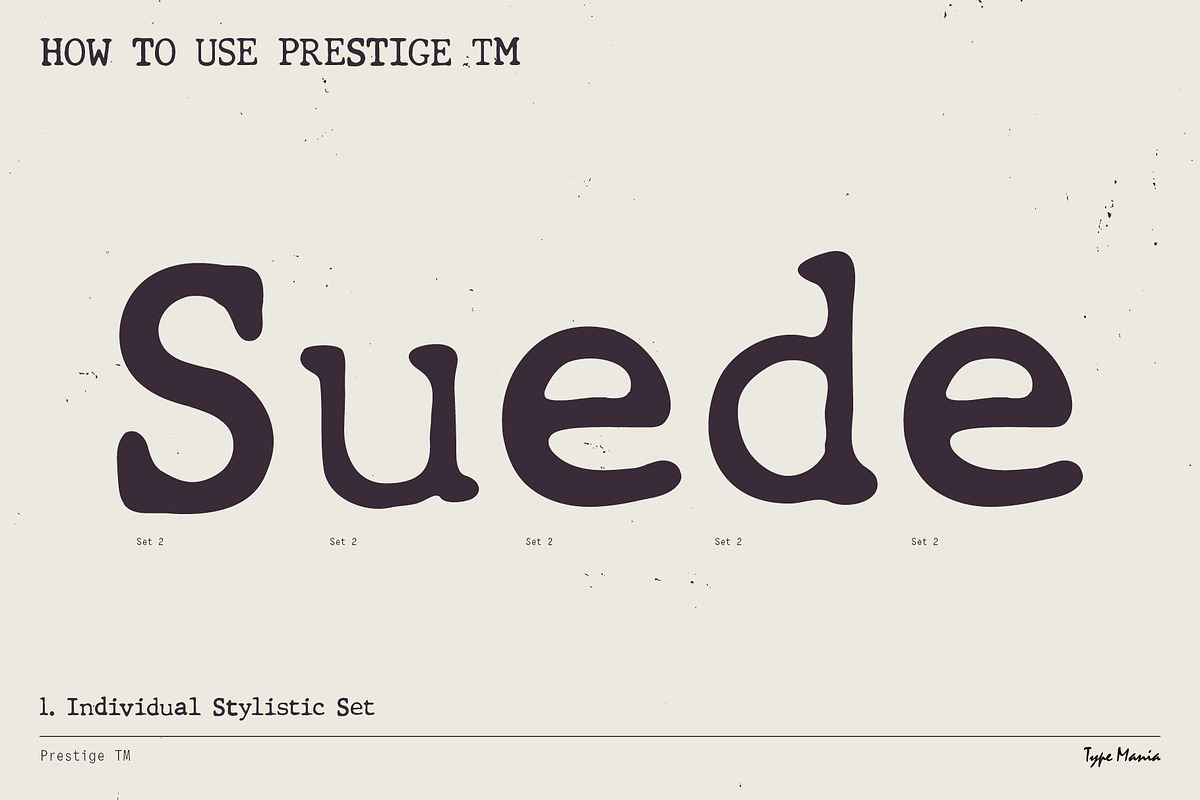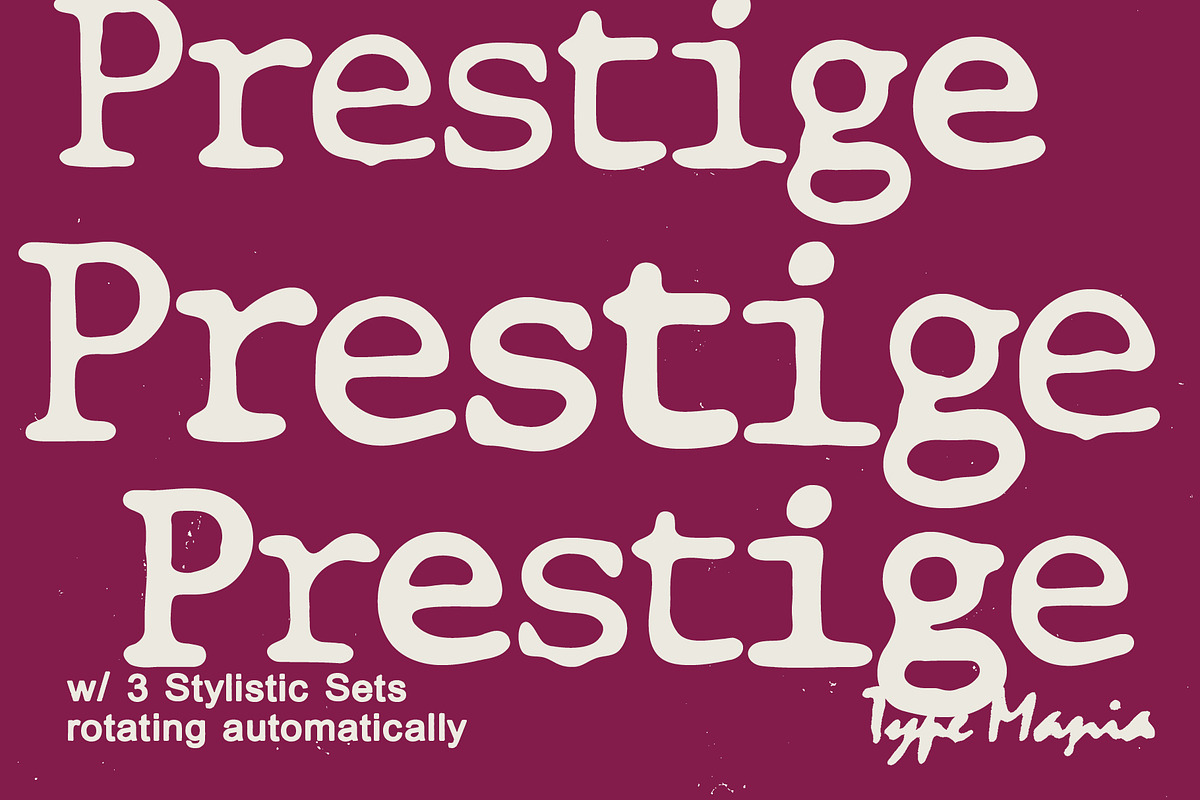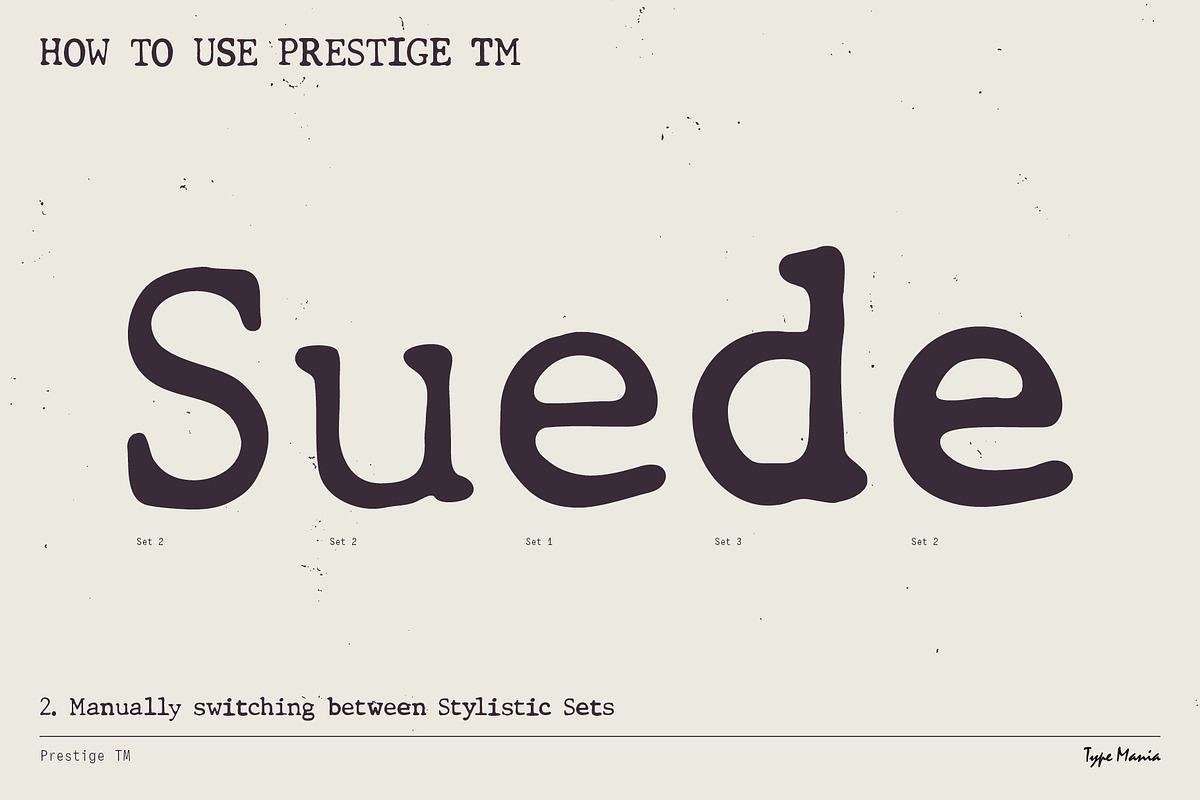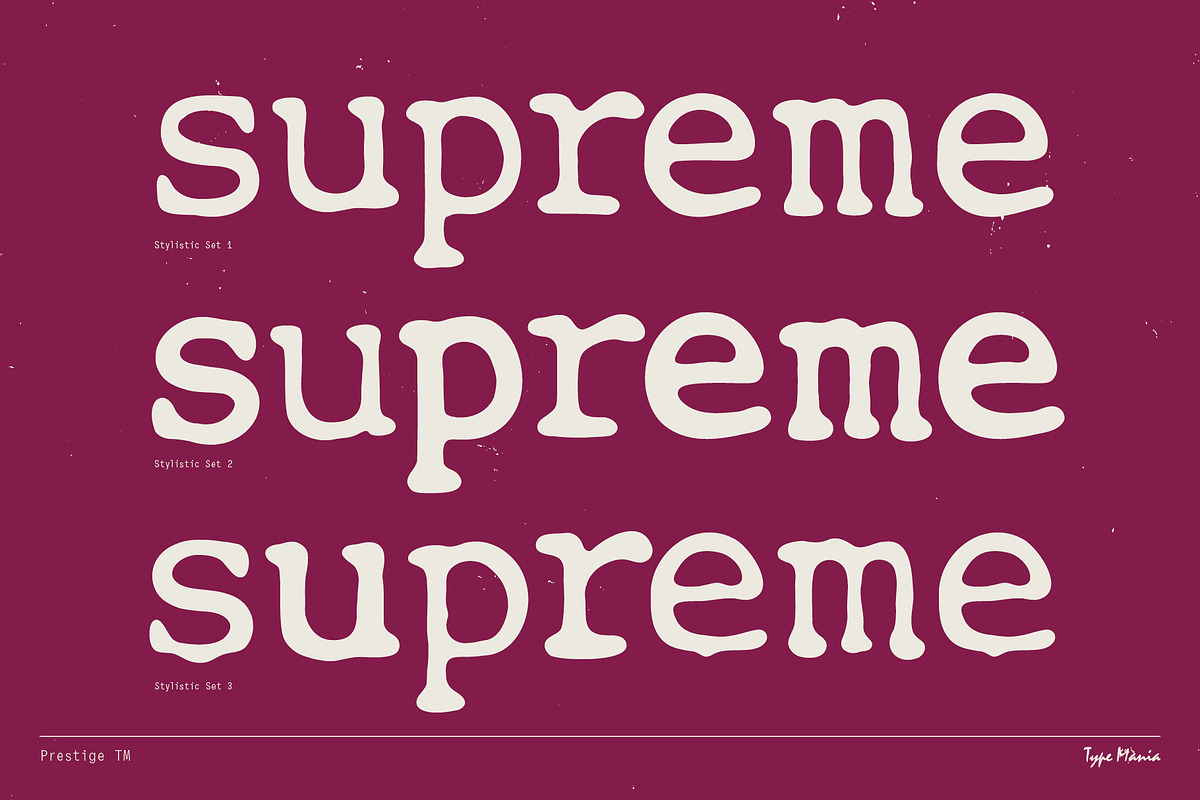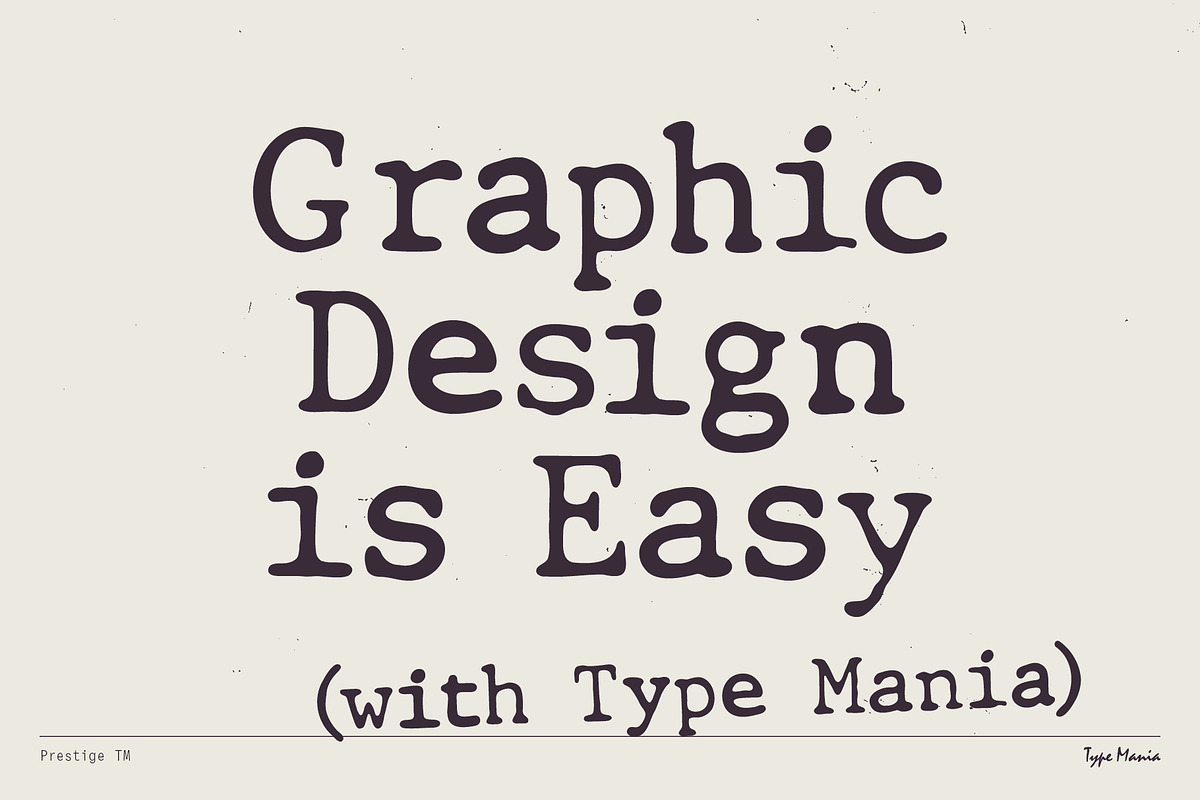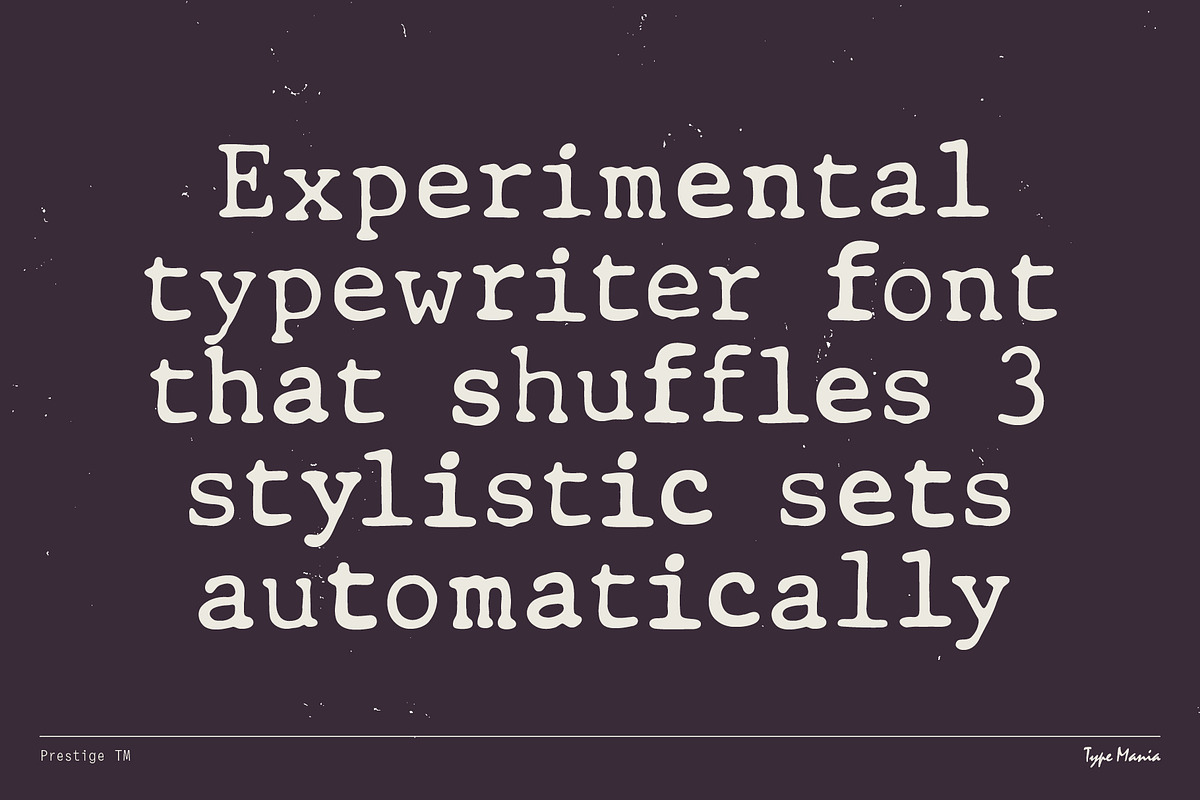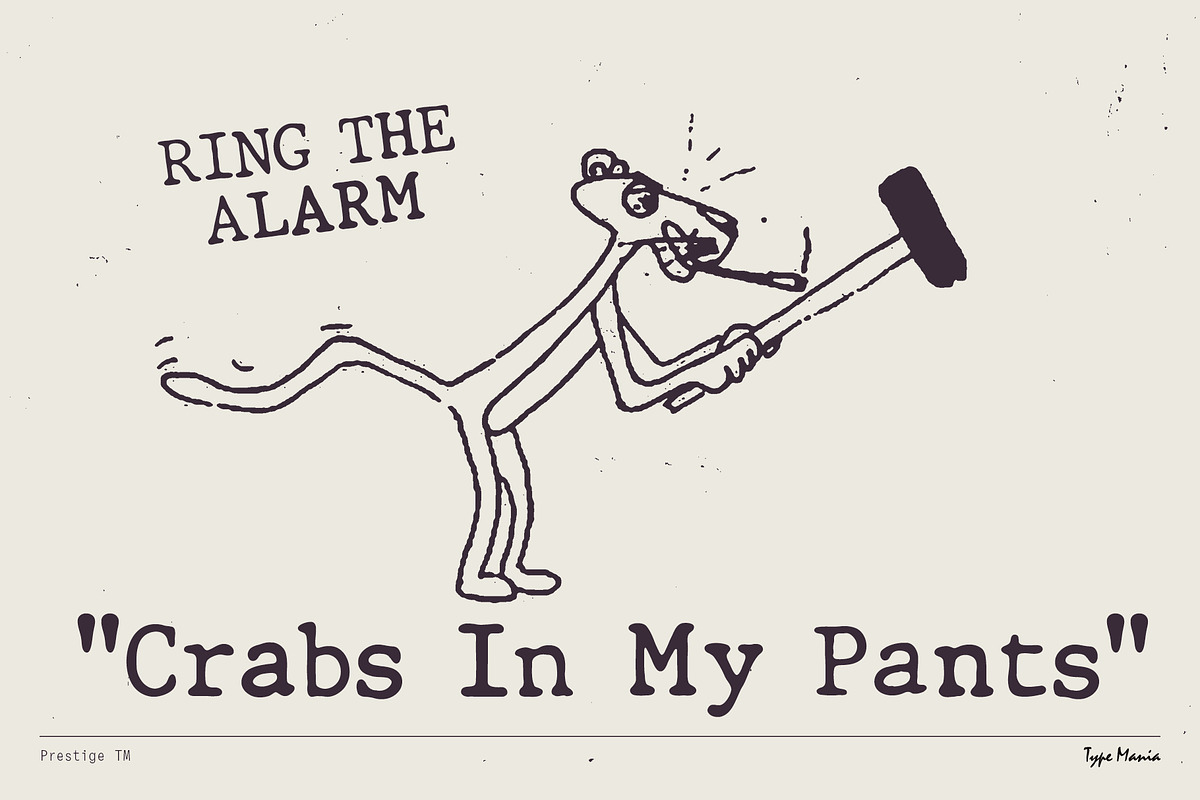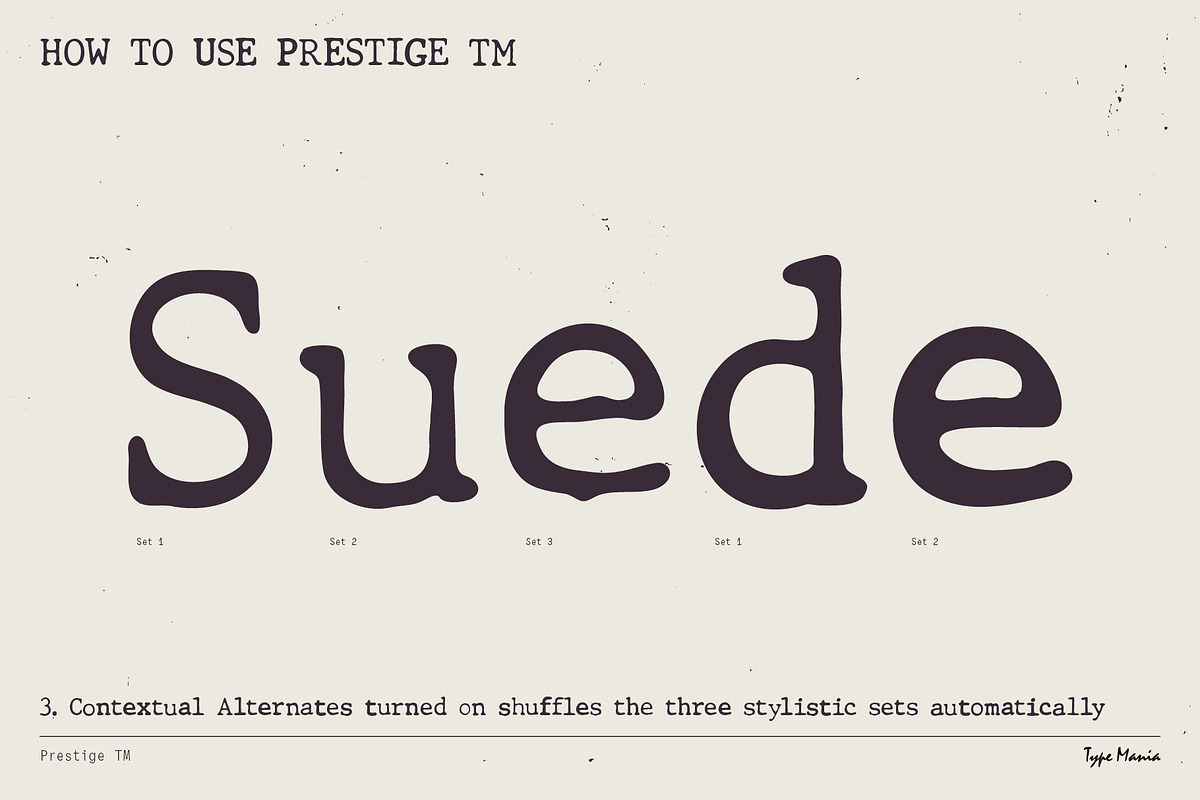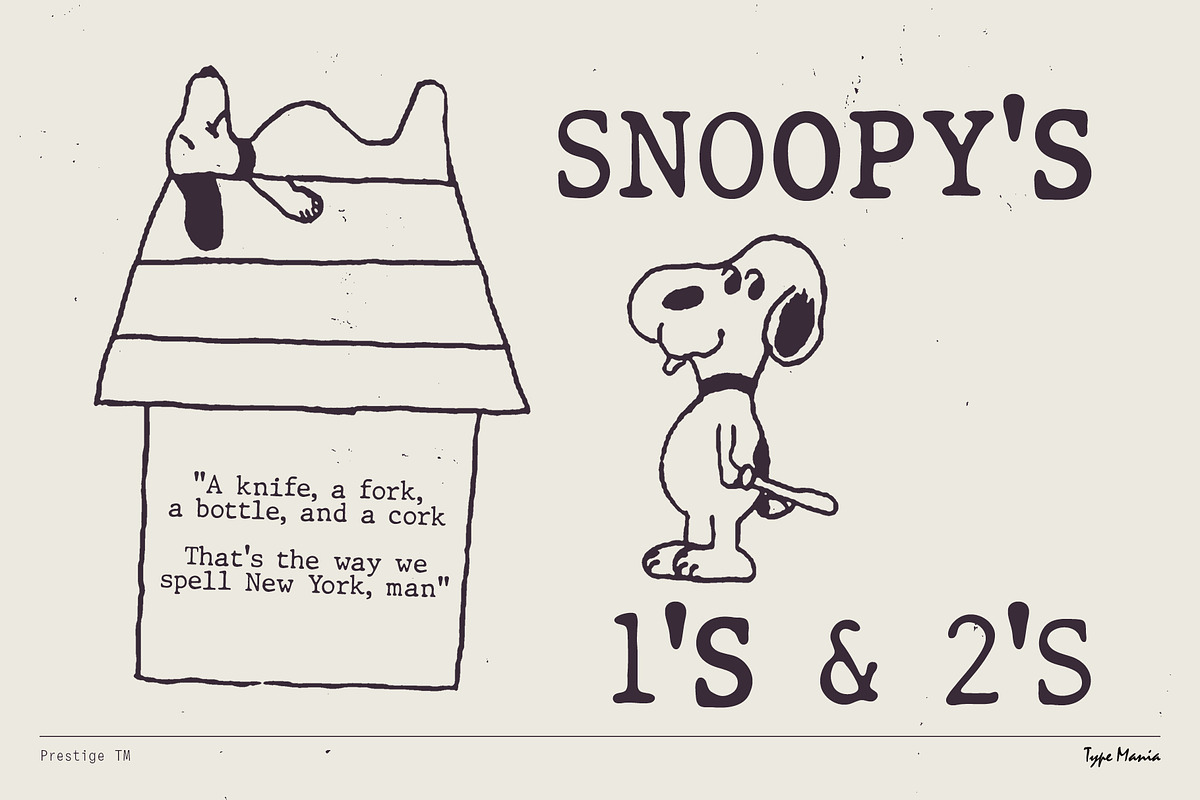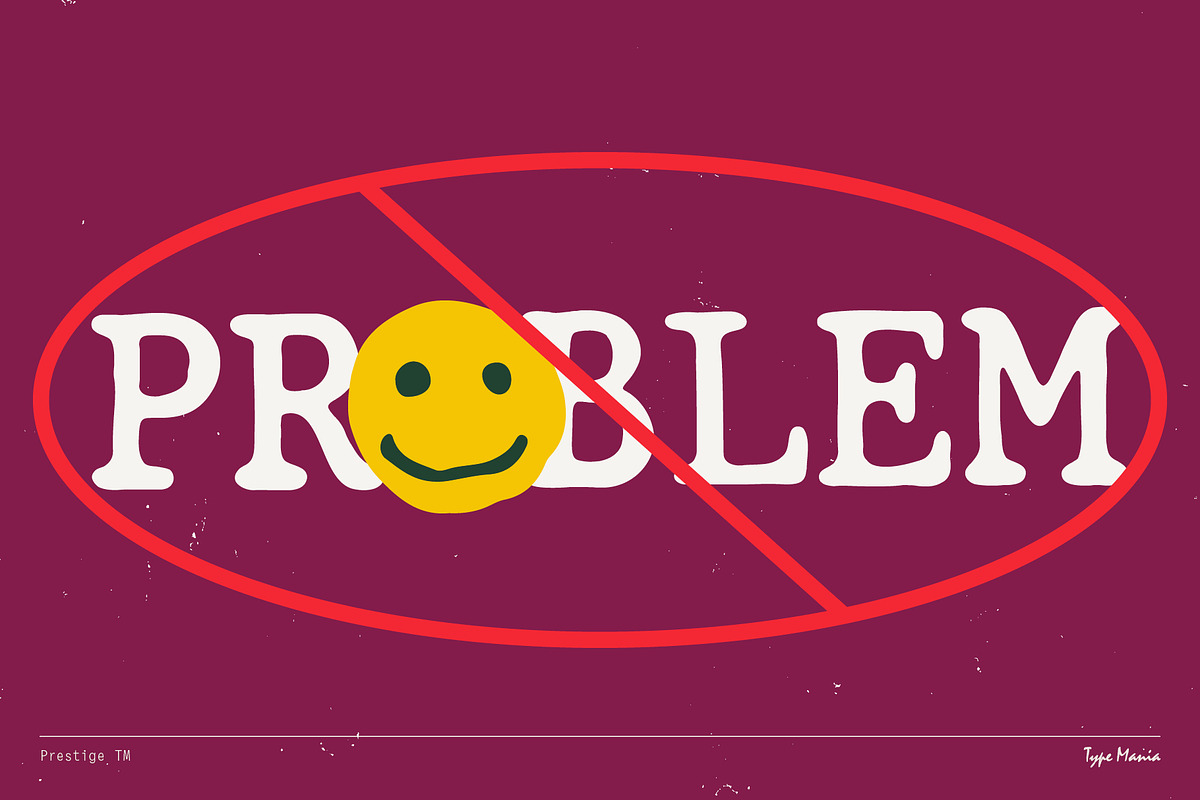
Prestige TM – Organic Typewriter
Prestige TM is a sans serif typeface rooted in mid-century typeball machines. It has distressed throwback shapes, but introduces a dynamic edge: its three stylistic sets rotate automatically, creating the same irregular vibe as ink striking paper.
OpenType features
- 3 stylistic sets
- The font is programmed to automatically shift between the stylistic sets